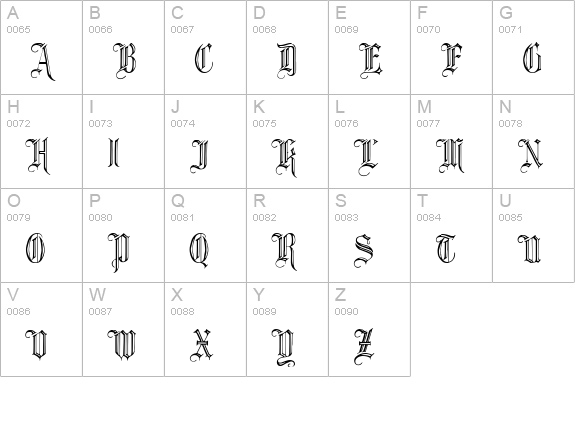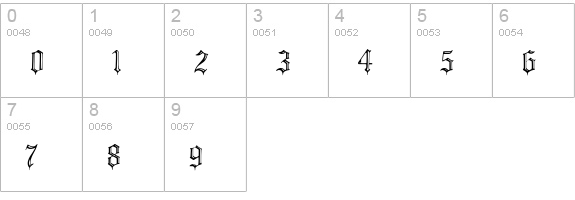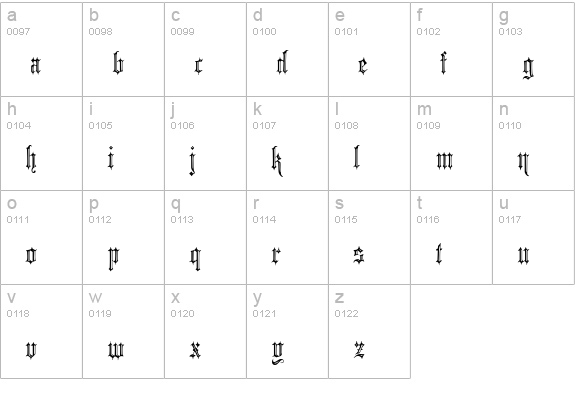
Minster No 2 Font Details
Minster No 2 font is a stunning typeface that combines elegance and modernity, making it perfect for a wide range of design projects. With its clean lines and sophisticated appearance, this font exudes professionalism and style. The sharp edges and unique letterforms of Minster No 2 will capture the attention of your audience and elevate your designs to the next level. The best part? Minster No 2 font is completely free to download at FontsMarket.com. This means you can access this beautiful typeface without any cost, allowing you to enhance your projects with a premium font without breaking the bank. Whether you're creating branding materials, invitations, posters, or any other design, Minster No 2 font will add a touch of class and sophistication to your work. Don't miss out on this fantastic opportunity to elevate your designs with Minster No 2 font. Download it for free today at FontsMarket.com and start creating stunning visuals that will leave a lasting impression on your audience.